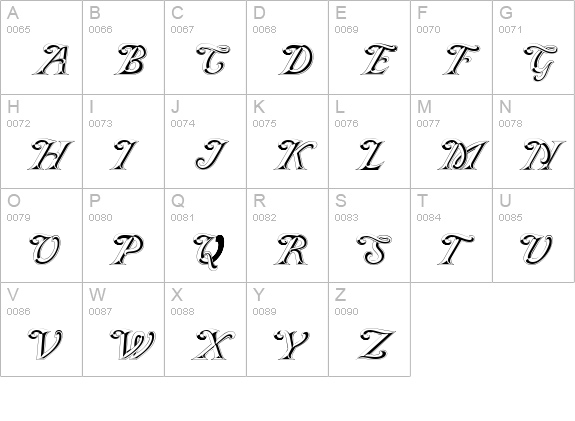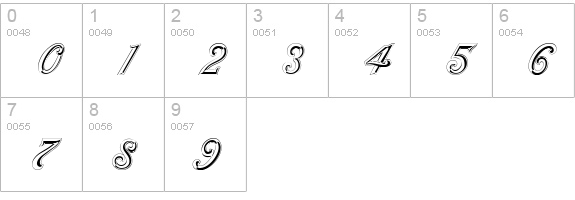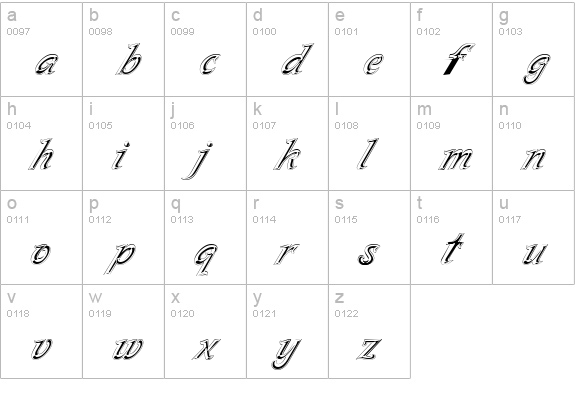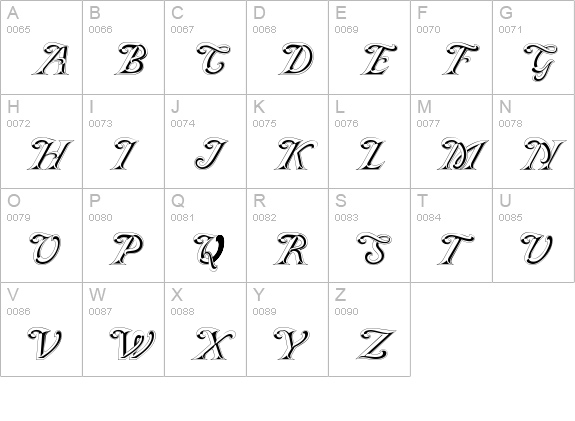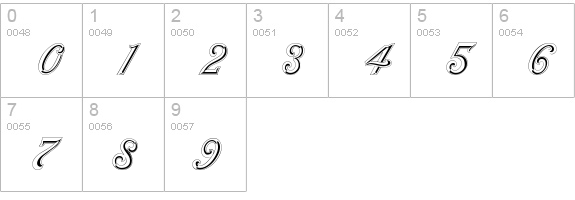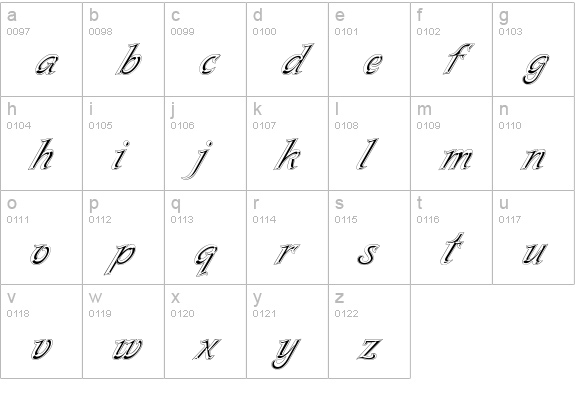
Introducing GE Silvette - a sleek and modern font that exudes elegance and sophistication. With its clean lines and sophisticated curves, GE Silvette is perfect for projects that require a touch of refinement. This versatile font is suitable for a variety of design applications, from branding to editorial design to web design. Best of all, GE Silvette is available for free download at FontsMarket.com. Whether you're a seasoned designer looking to add a new font to your collection or a newcomer exploring different typographic styles, GE Silvette is a fantastic choice. Download it today and elevate your projects with this stunning and versatile typeface.